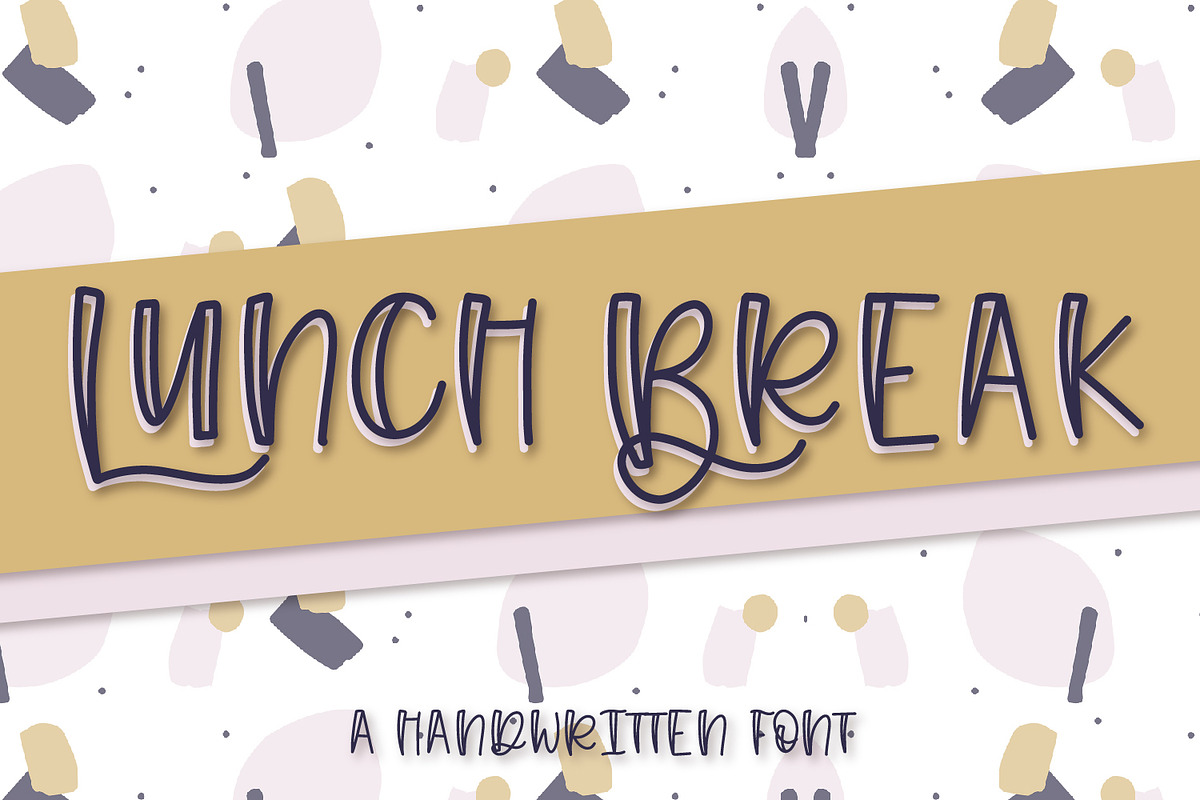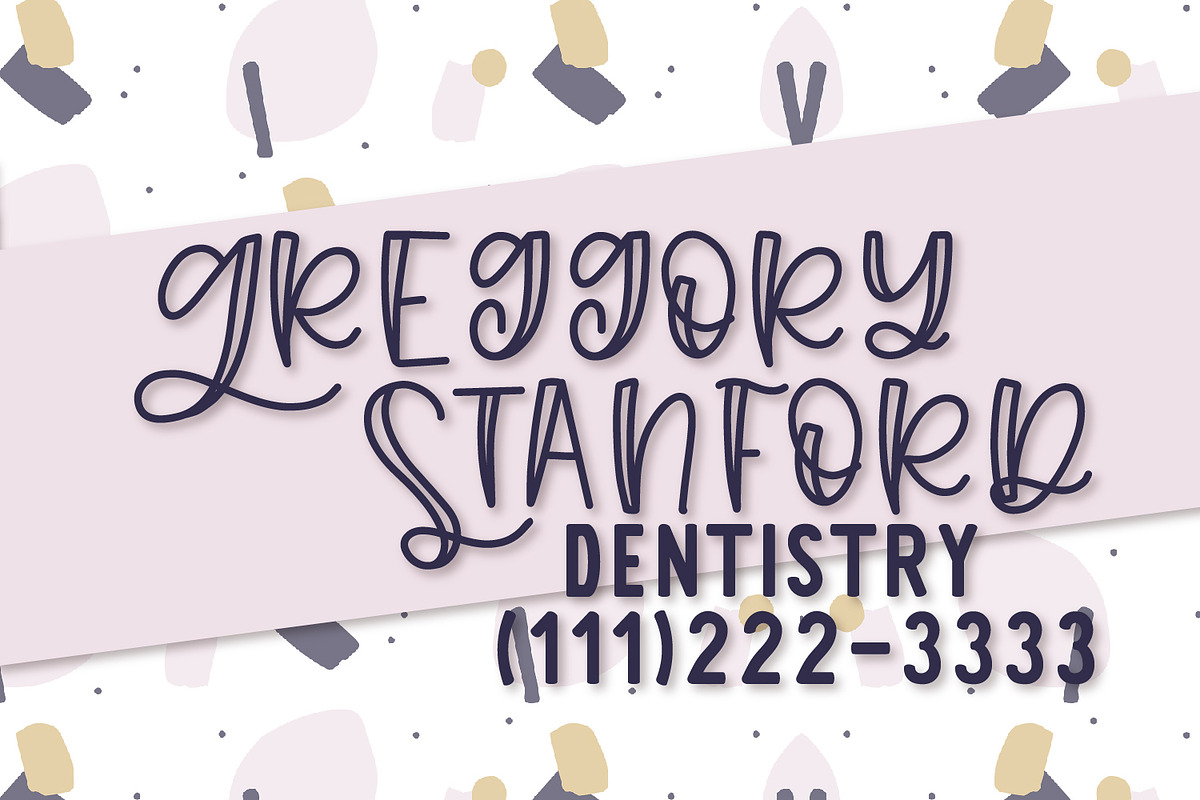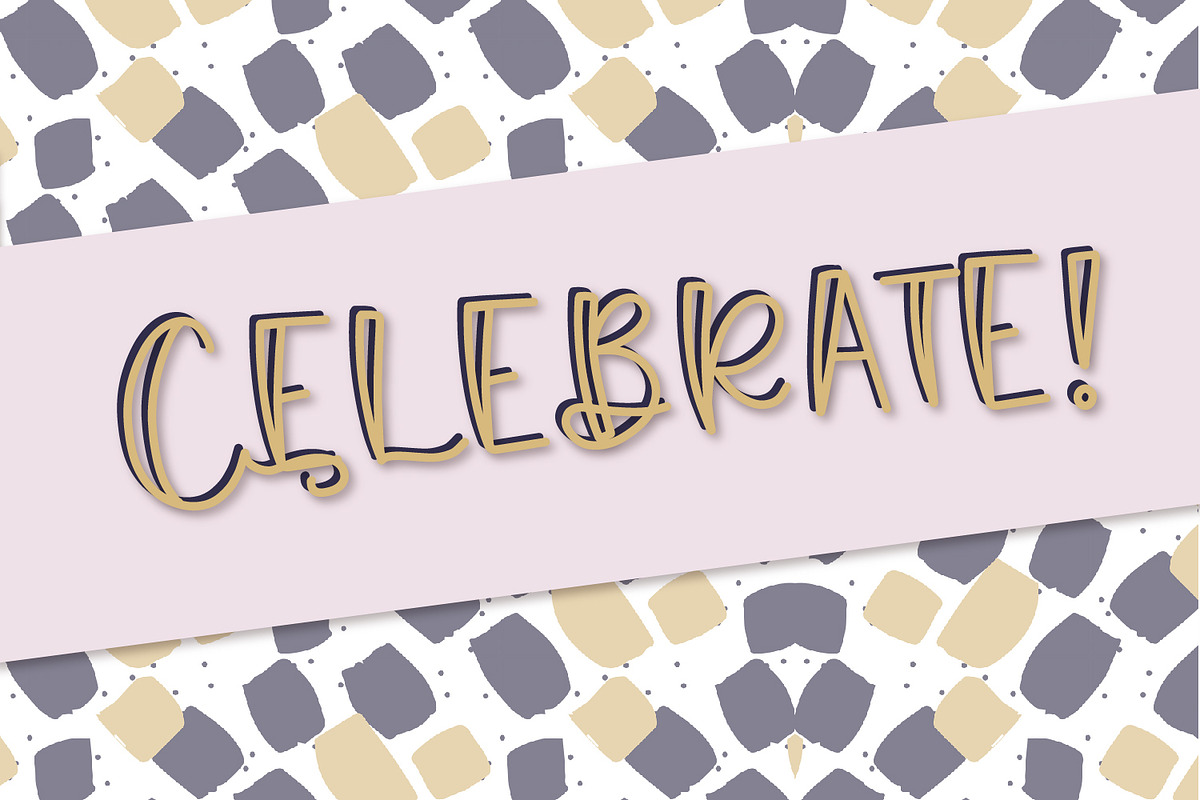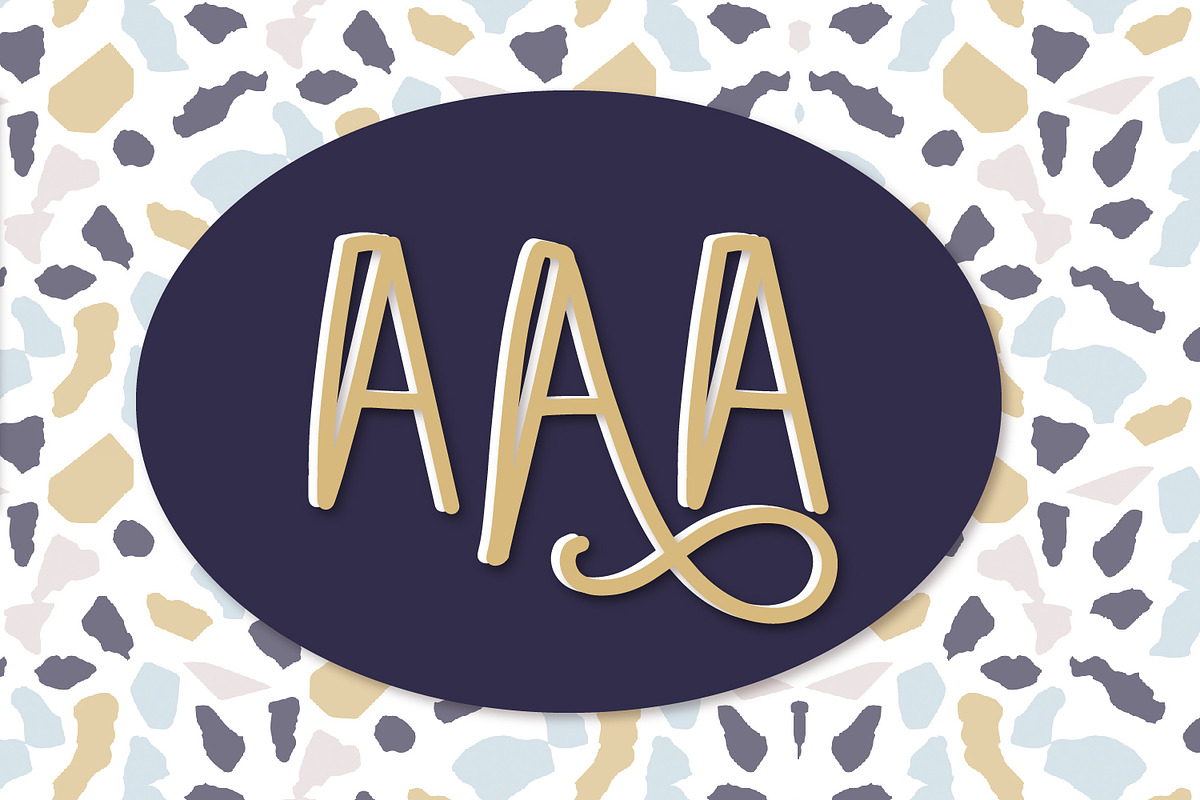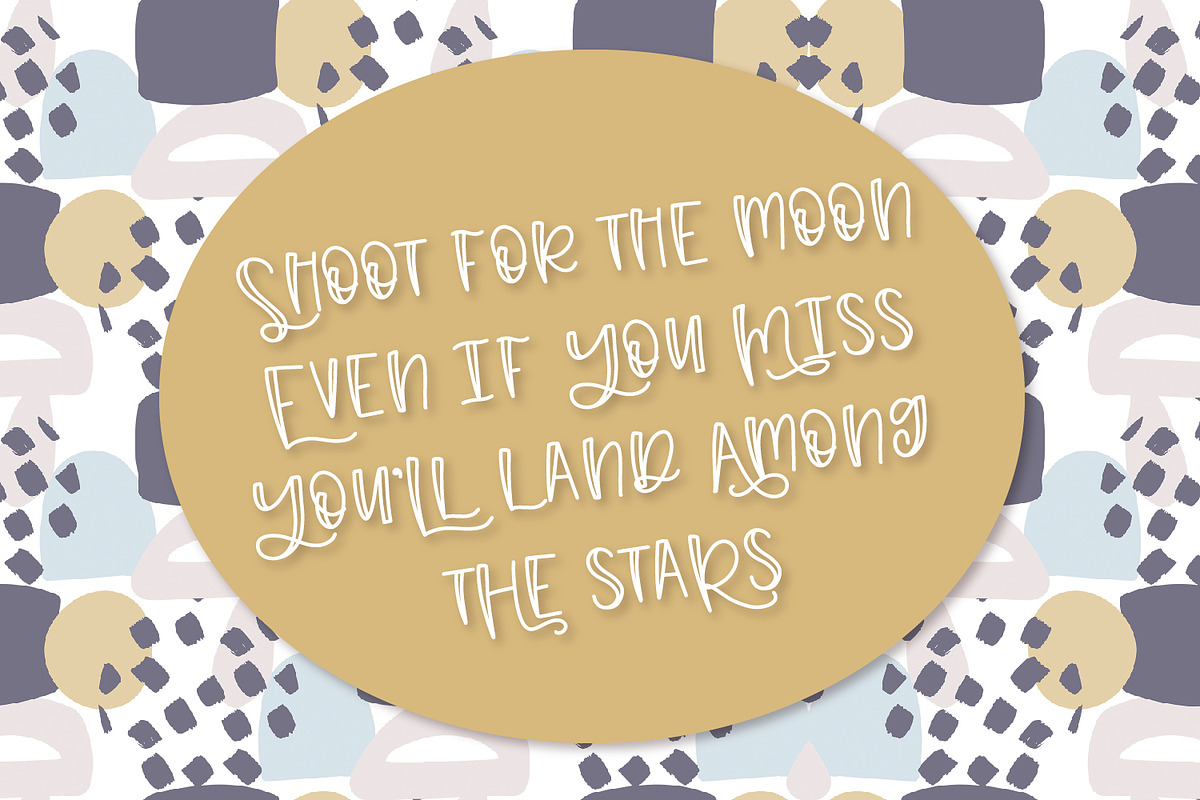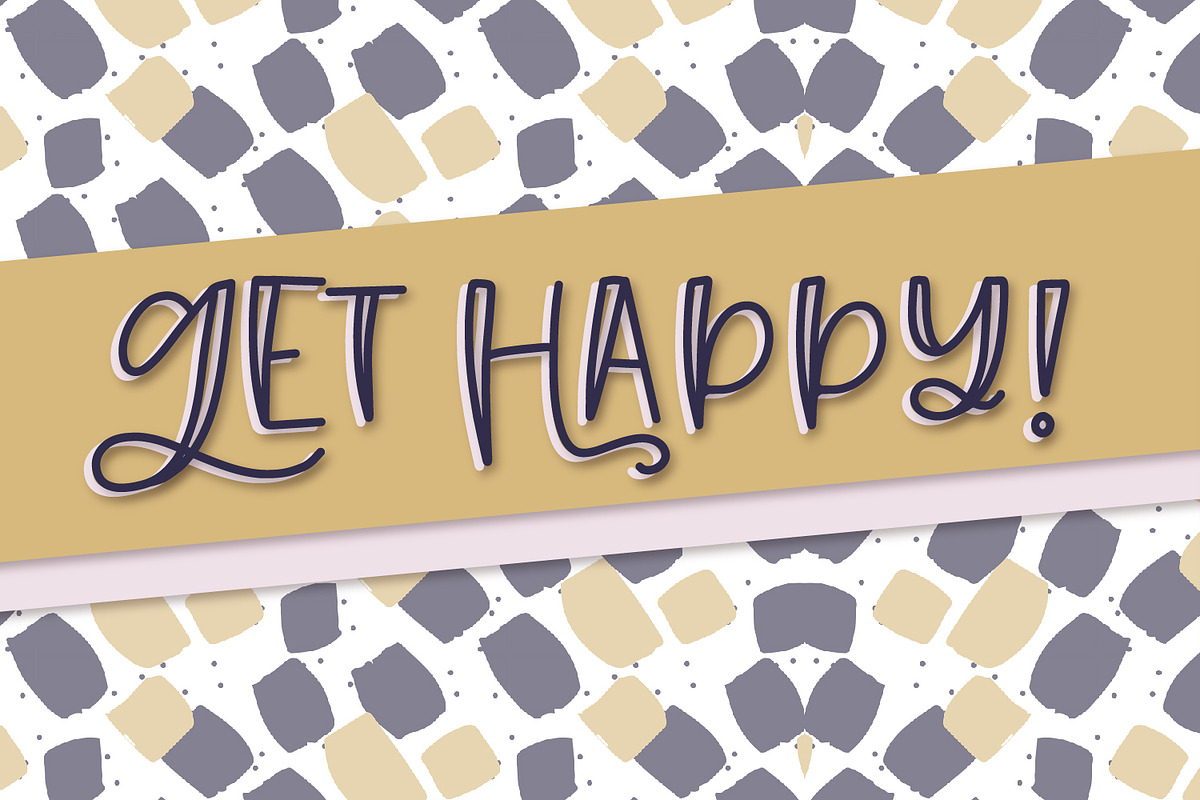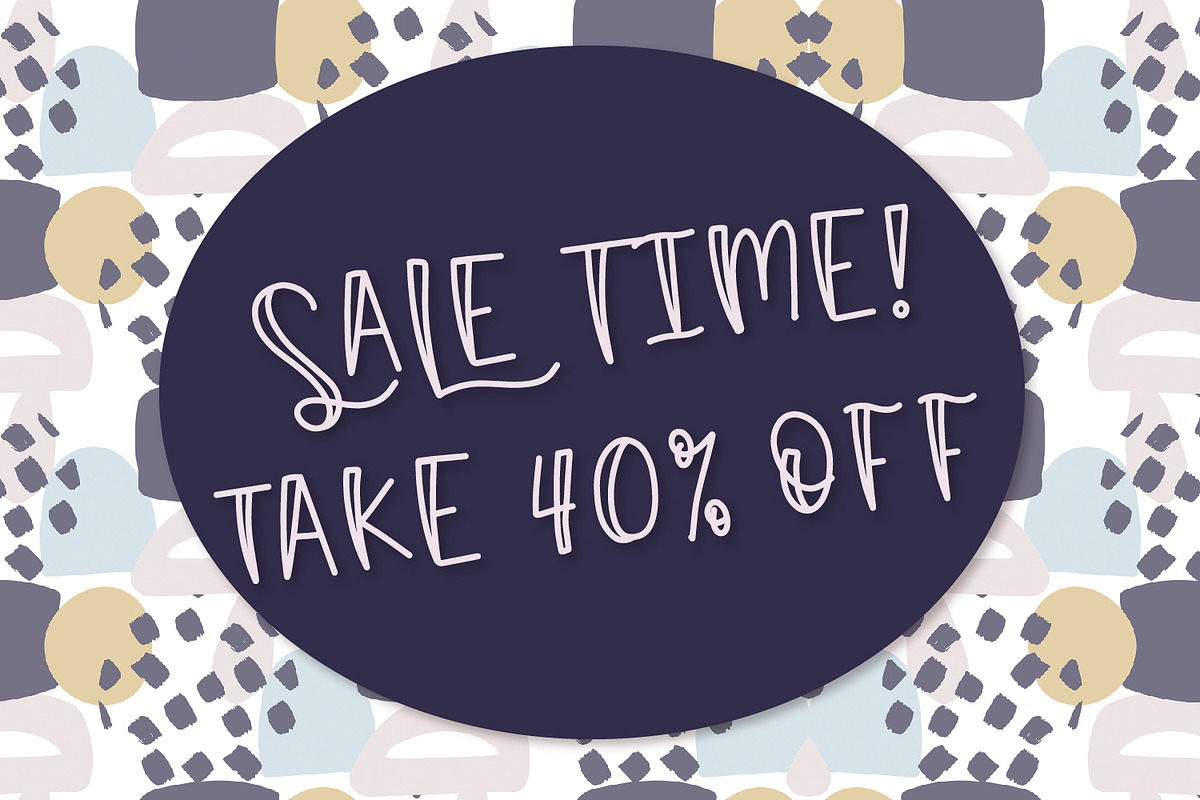
Lunch Break - A Hand Lettered Font
Lunch Break - A Hand Lettered Font by CraftyLittleNodes fits naturally into Branding, posters, packaging, typography.